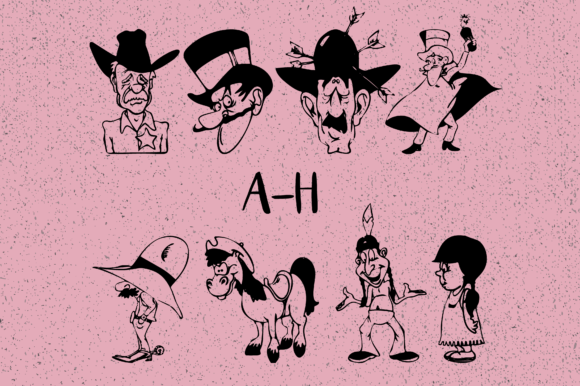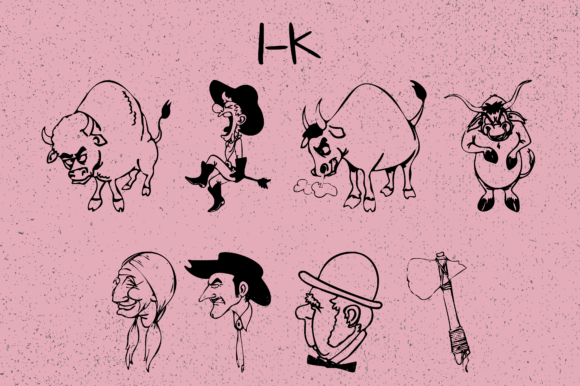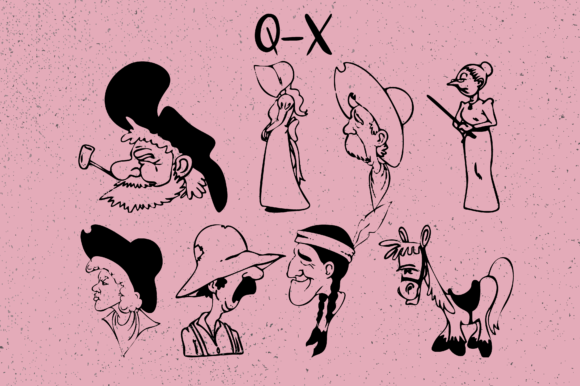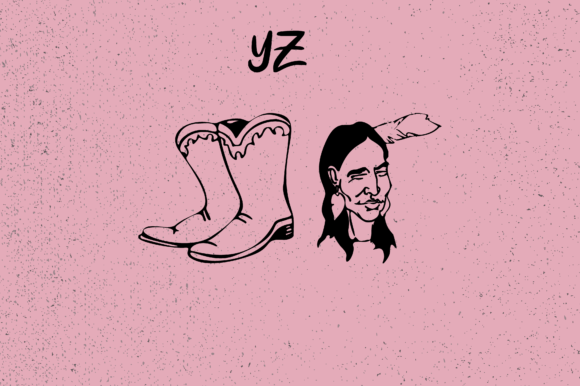
Wild West Font
About Wild West Font
Wild West is a type of dingbats font that’s become quite popular in recent years. It’s often used to create fun and creative designs with a western theme. The font contains a variety of character symbols that can be combined to form images of guns, horseback riders, and other western icons. One of the reasons Wild West is so popular is because of how easy it is to use. With a few keystrokes, users can create a wide range of western-themed images. The font can also be used in a variety of different design projects, including invitations, party decorations, and even branding. Wild West is a versatile and fun font that’s perfect for anyone looking to add a western flair to their designs. The font contains a variety of characters, including stars, horseshoe shapes, revolvers, cowboy hats, and other symbols and icons associated with the wild west theme. The font is also known for its versatility. With the right combinations of characters, users can create a wide range of images, from simple bullets to elaborate sheriff’s stars. Additionally, the fonts are easily customizable and can be scaled to fit a variety of different projects. Overall, Wild West is a fun and creative way to add a western flair to any design project.